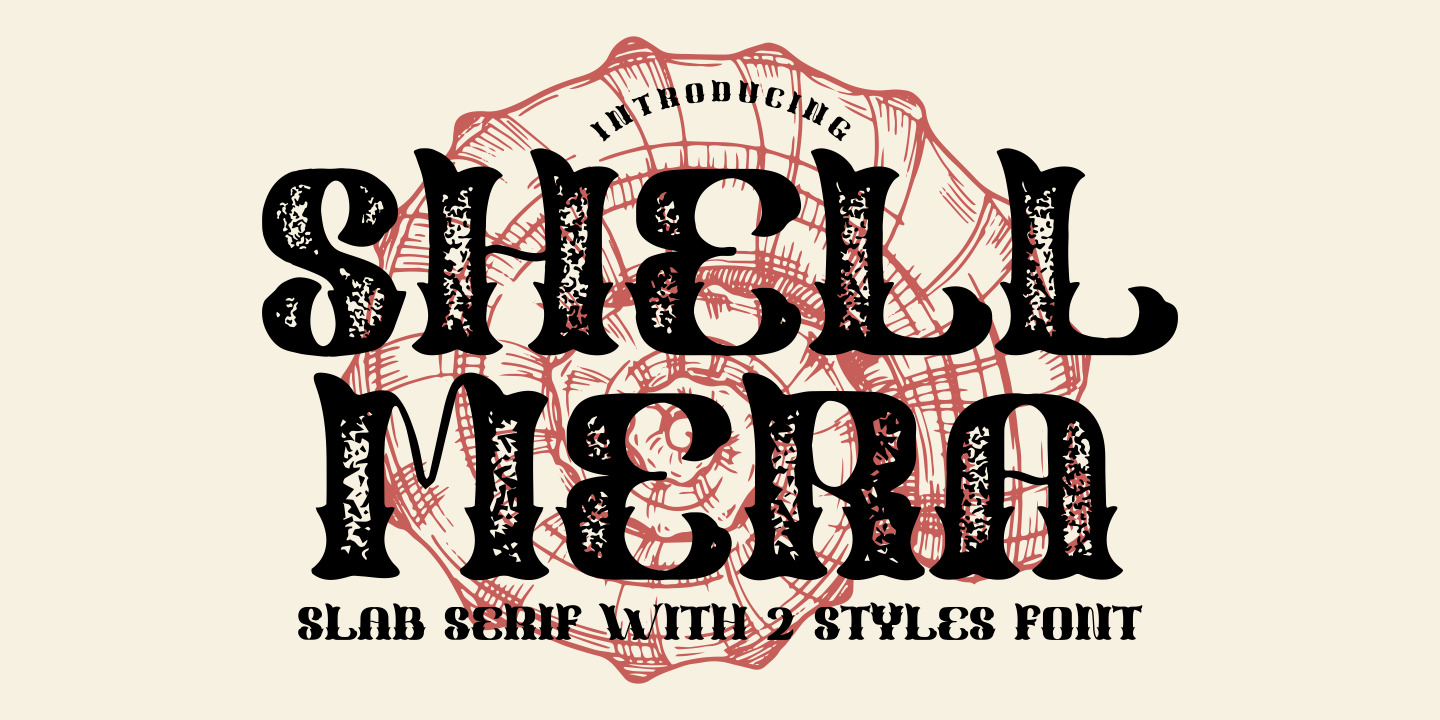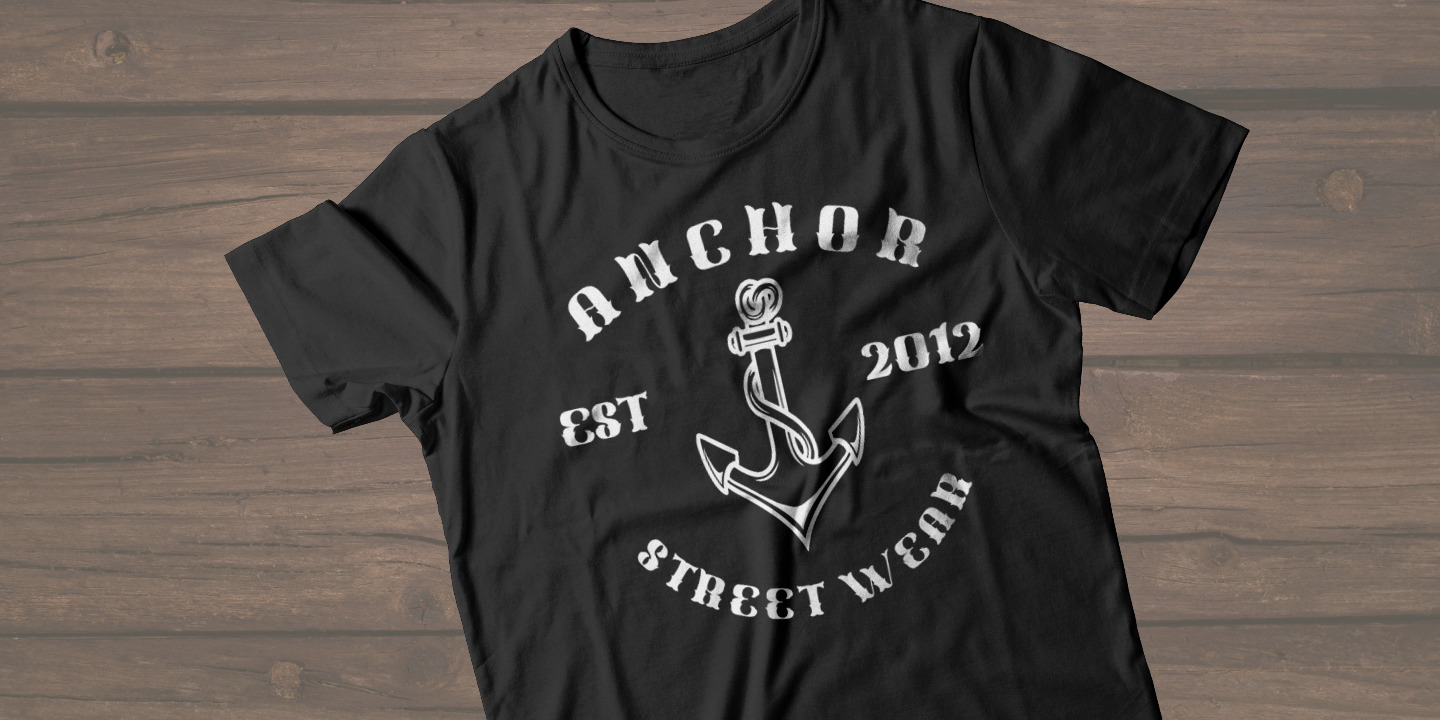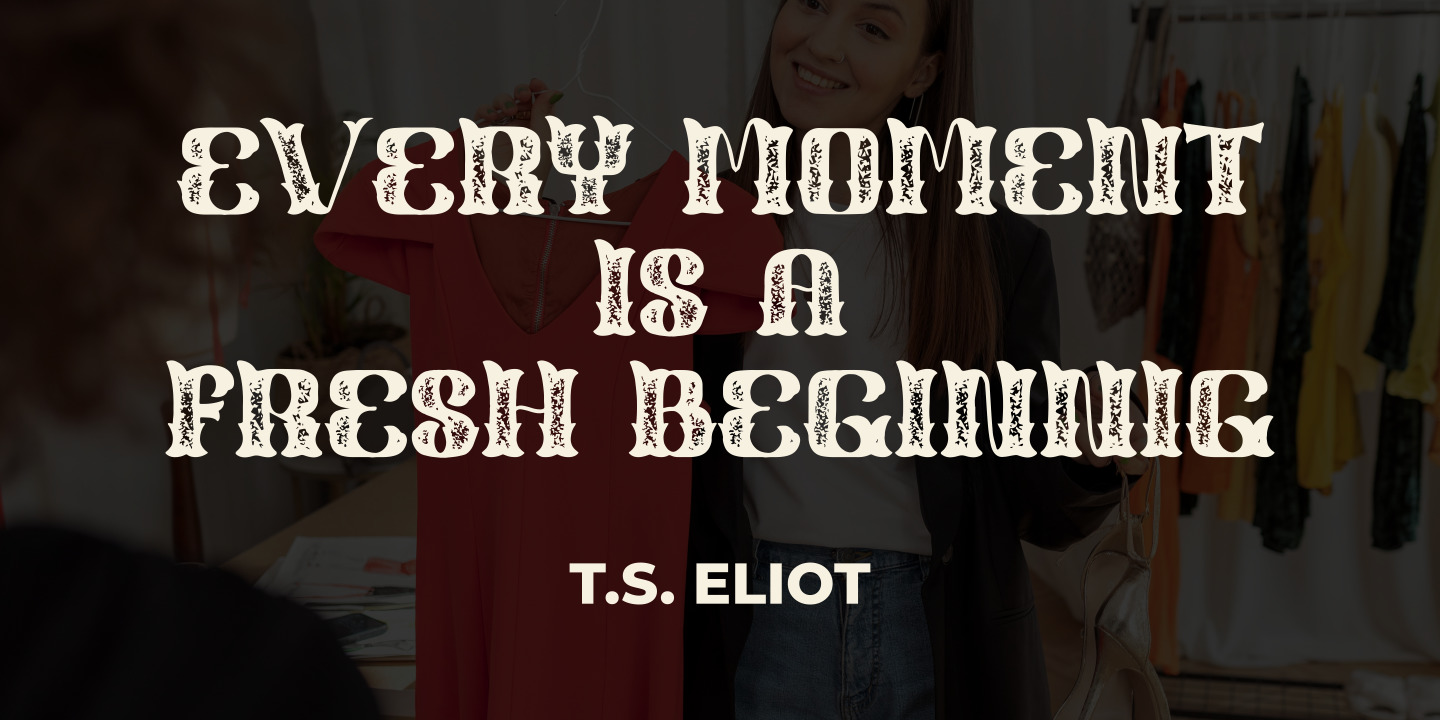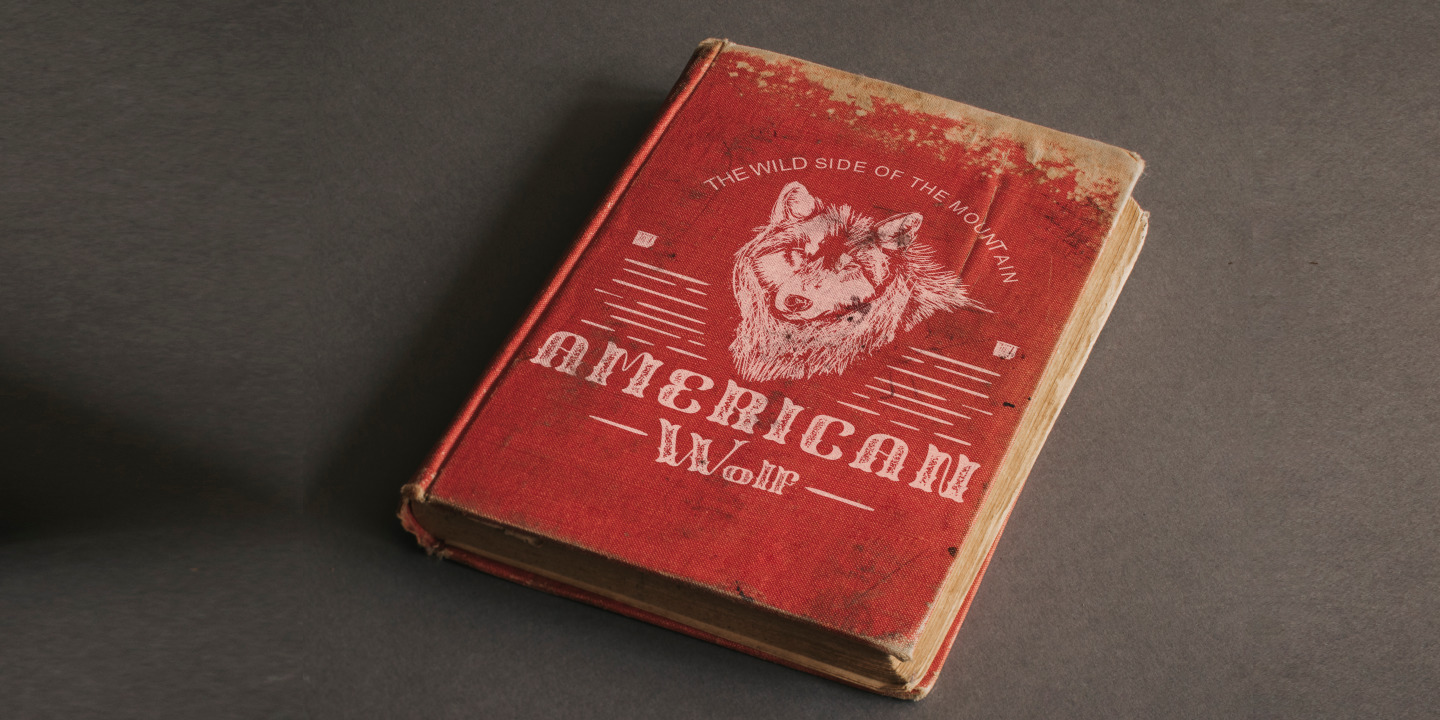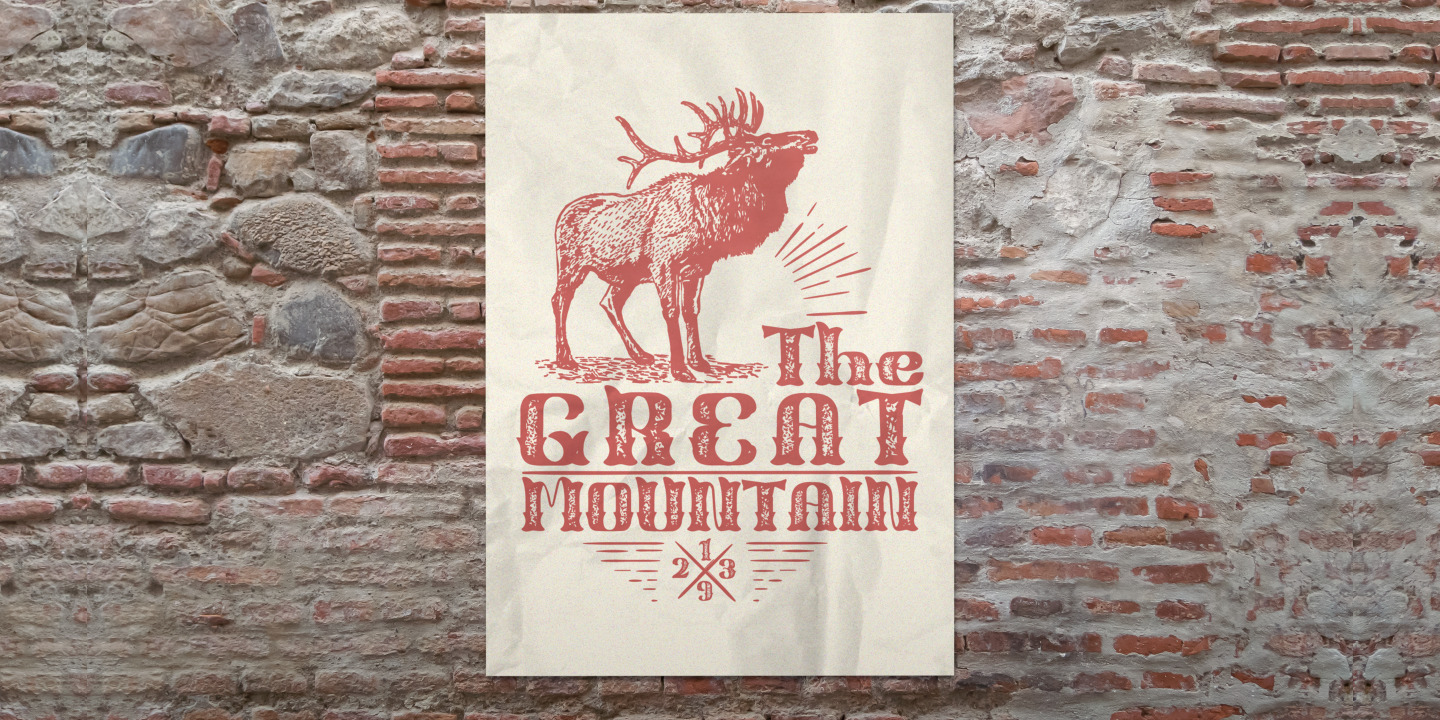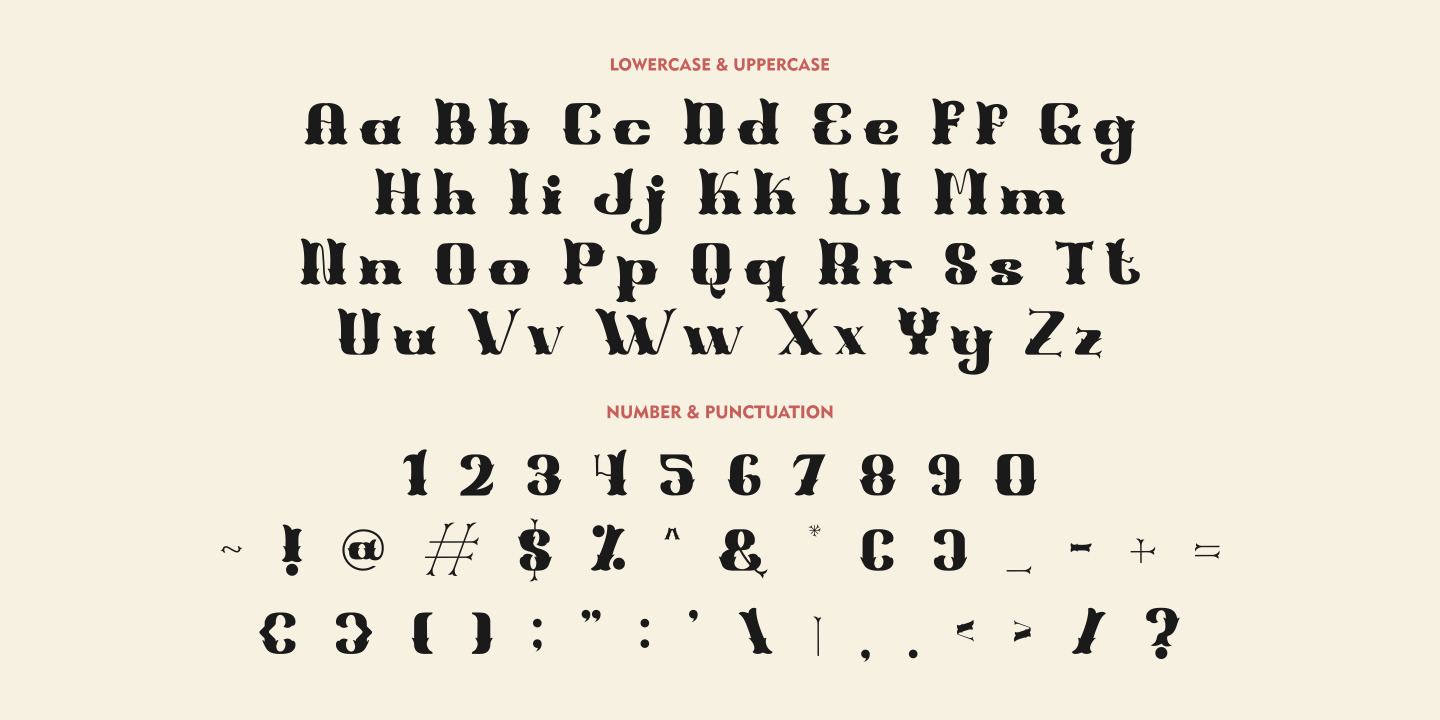
SHELL MERA - SLAB SERIF FONT
SHELL MERA - SLAB SERIF FONT. SHELL MERA is a slab serif inspired by 1970s cowboy and sheriff posters but made flexible enough for everyday use. What makes this font unique is the difference in the height of each character. The baseline is also not the same, so it makes this font seem irregular
SHELL MERA best uses for title, invitation, heading, cover, poster, logos, quotes, product packaging, merchandise, social media & greeting cards and many more